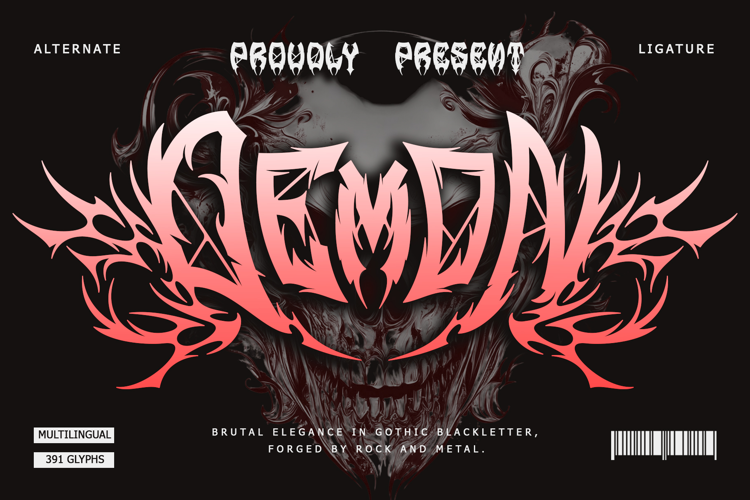
Demonic Fury - Black Metal Font
Demonic Fury is a dark and aggressive black metal font created for extreme typography, heavy music artwork, horror visuals, underground branding, album covers, posters, merchandise, and dramatic display designs. Inspired by the sharp, chaotic, and intense lettering found in black metal aesthetics, Demonic Fury transforms words into powerful visual compositions filled with jagged edges, twisted forms, dramatic spikes, and sinister energy.
The uppercase characters are designed to create an intense display presence, making the font especially effective for band names, album titles, concert posters, merchandise graphics, horror artwork, gaming titles, and dark-themed branding. Its distinctive structure gives every word a raw underground character while maintaining a strong silhouette for large-scale compositions.
Demonic Fury includes uppercase characters, multilingual support, numbers, punctuation, and expressive swash characters for additional decorative possibilities. The swashes can be used to extend letters, create dramatic flourishes, or add an ornamental finishing touch to logos, titles, and compositions.
Demonic Fury is made for designers who want typography with a dark, powerful, rebellious, and extreme visual personality.